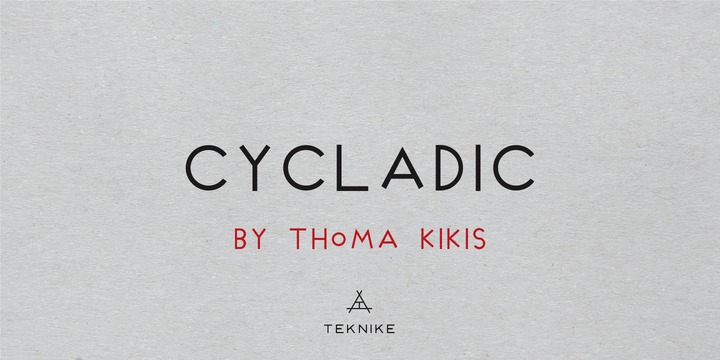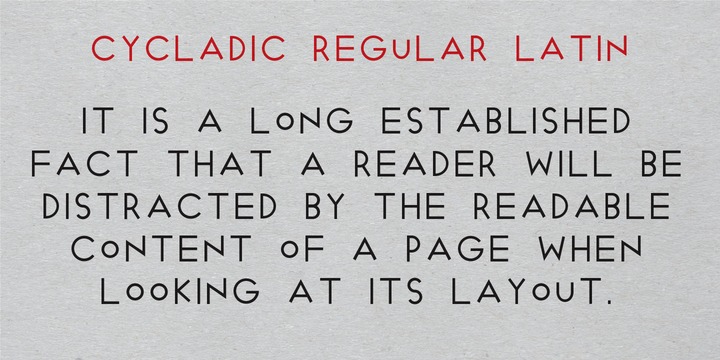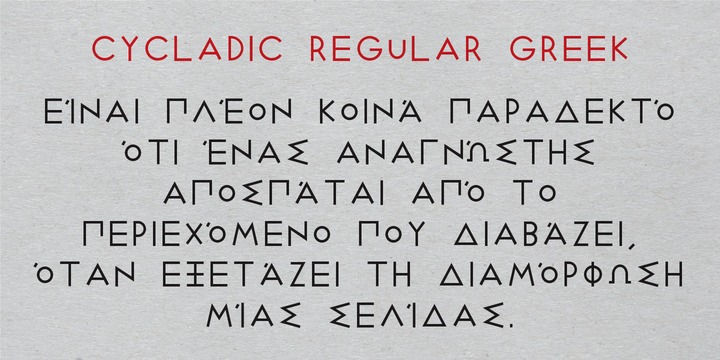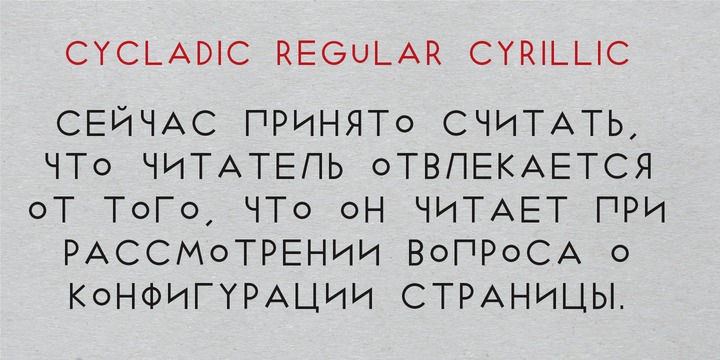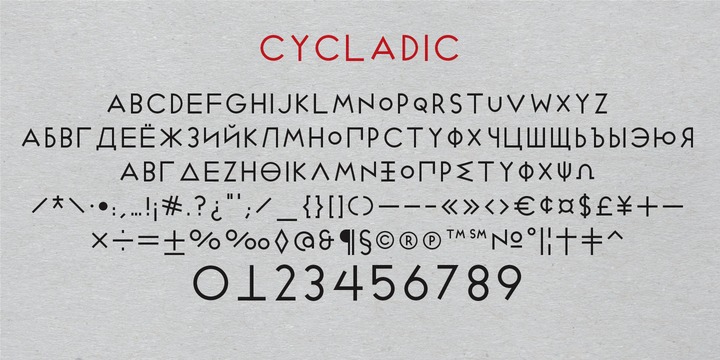
Cycladic Font Family
Cycladic is a distinct display monospace typeface. The Cycladic name is derived from the Greek kyklos meaning “circular” and reminiscent of writing in ancient Greece with a geometric circular style. Cycladic is great for fashion, events, branding, nautical and suited for luxury work, display, invitations, writing, architecture, posters, logos, titles and headings.